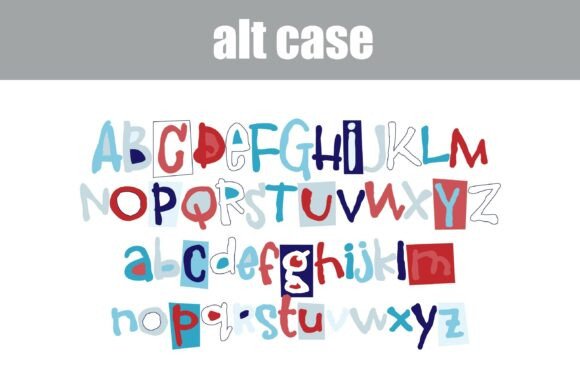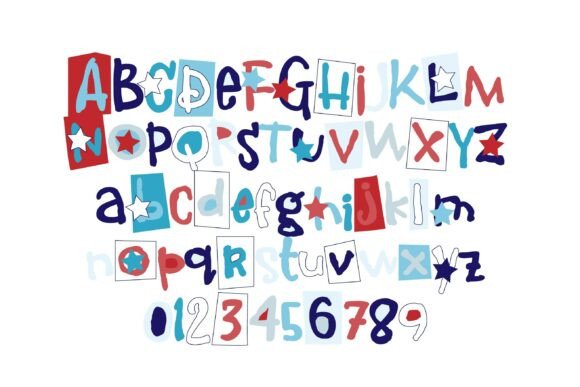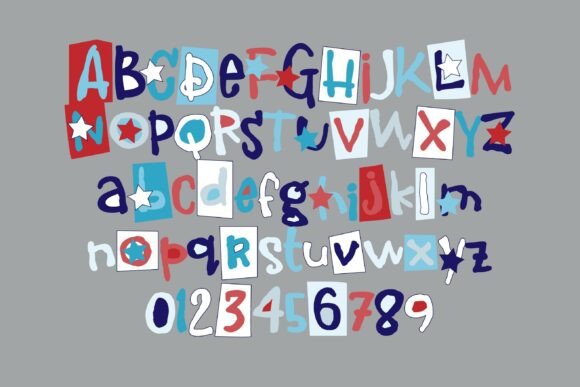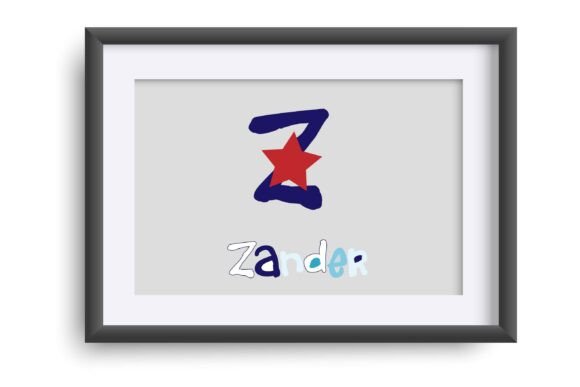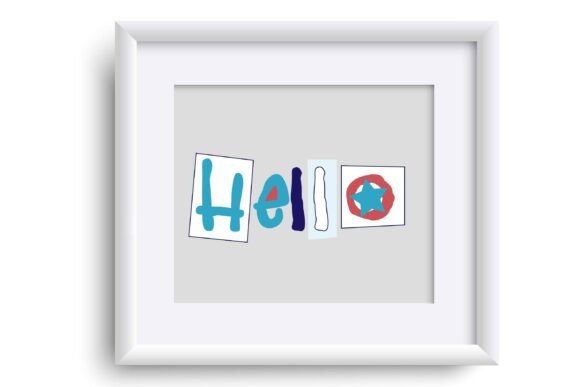
It’s the Fourth Font – Free Download
Introduction to It’s the Fourth Font
This full-color font features a very youthful font in Americana colors with occasional stars.
There is an alt case of alternate colorings of each letter that you can access through your system or Silhouetteโs glyph map OpenType full-color (SVG) fonts are installed like any normal .
Key Features of It’s the Fourth Font